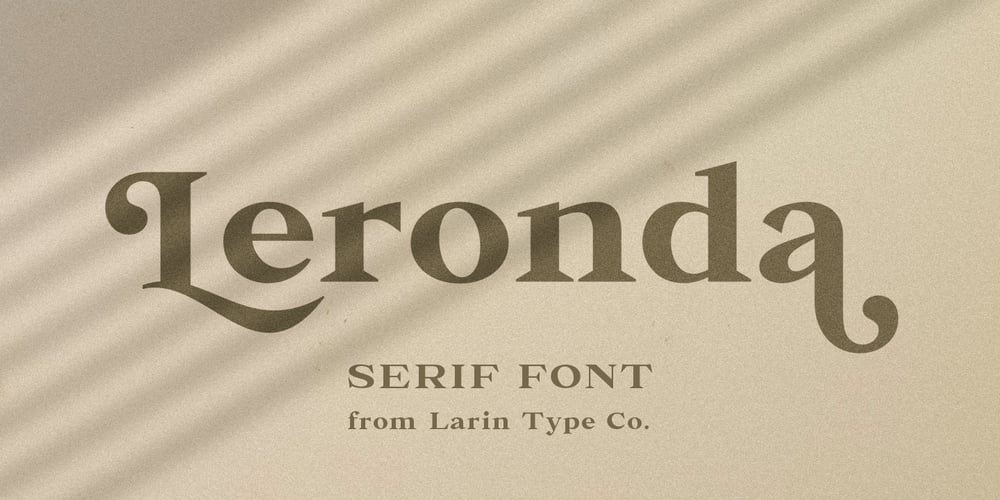
Leronda Font Family was designed by Pavel Larin and published by Larin Type Co. Leronda contains 1 styles and family package options. Leronda is an awesome font that can look austere and classic or vintage and softer and more pliable thanks to alternatives. They will add charisma, diversity to your project and emphasize your brave decision. Also lowercase ligatures are included in this font, use them and it will also show your personality. This font is quite heavy weight and is perfect for creating logos, headlines, advertising, branding, book covers and magazines, and much more. Use it in headings and text to highlight important information.This font is easy to use and has OpenType features.